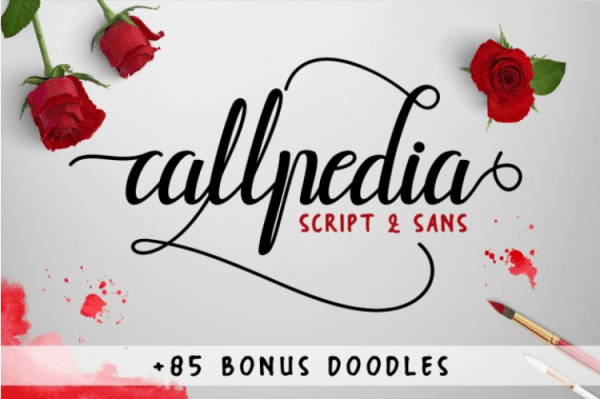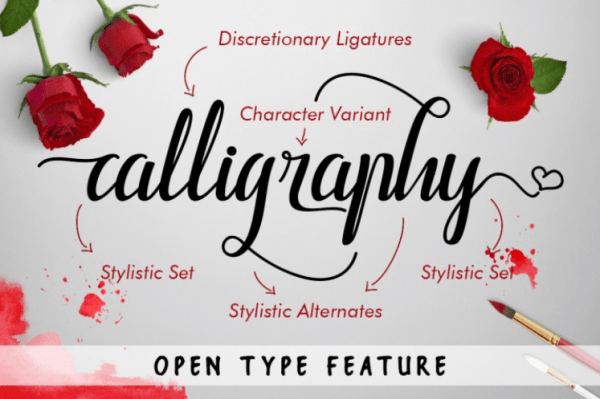
Font Frenzy: The Callpedia Font Duo
Callpedia Script and Sans + 85 bonus doodles from FL Studio.co comes with a full commercial license, allowing you to use these beautiful fonts across a wide range of commercial activities.